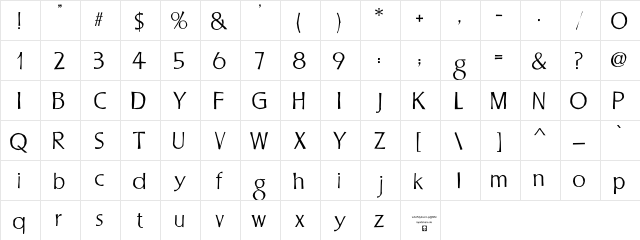
LHF Stevens Percepta Light Regular
| Foundry | Arthur Vanson for Letterhead Fonts |
| Designer | Arthur Vanson |
Design Context for LHF Stevens Percepta Light Typeface
LHF Stevens Percepta Light takes a measured approach to typography — its balanced proportions and neutral character make it a reliable workhorse for both digital and print work. Its slender proportions lend an understated elegance to any composition.